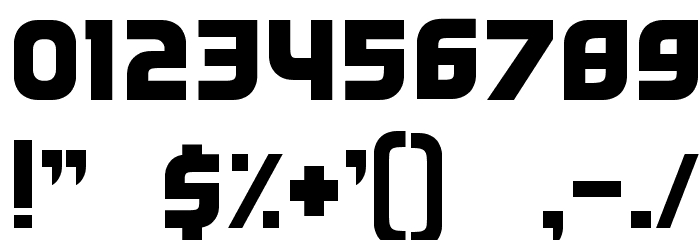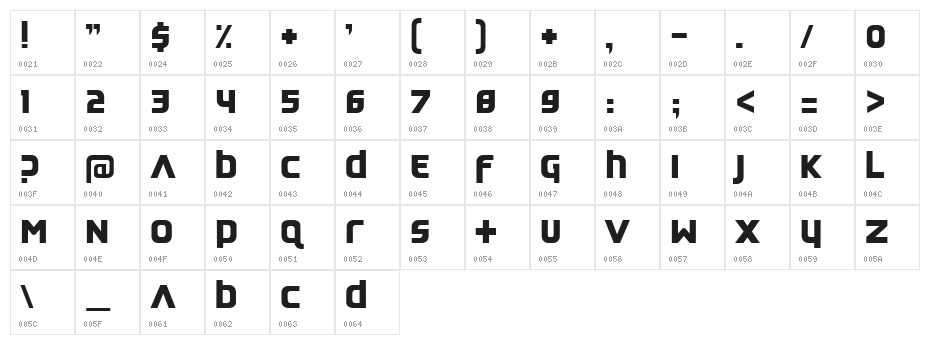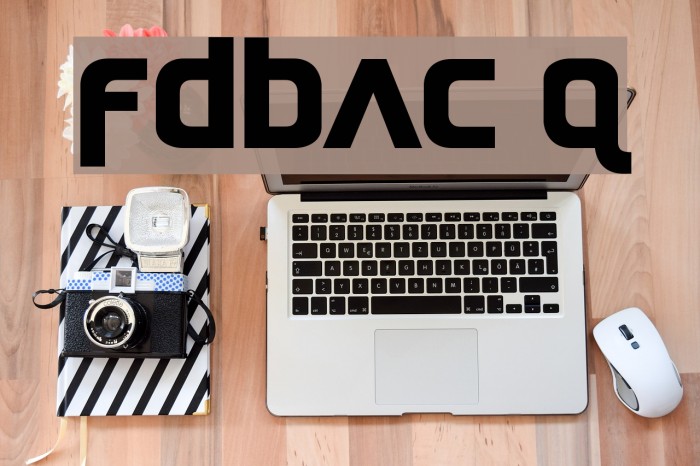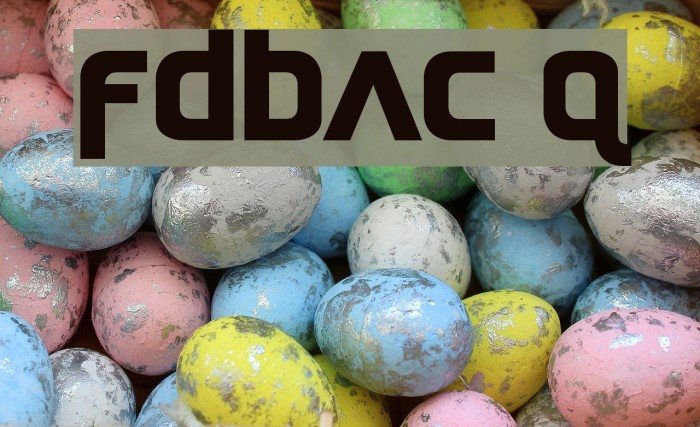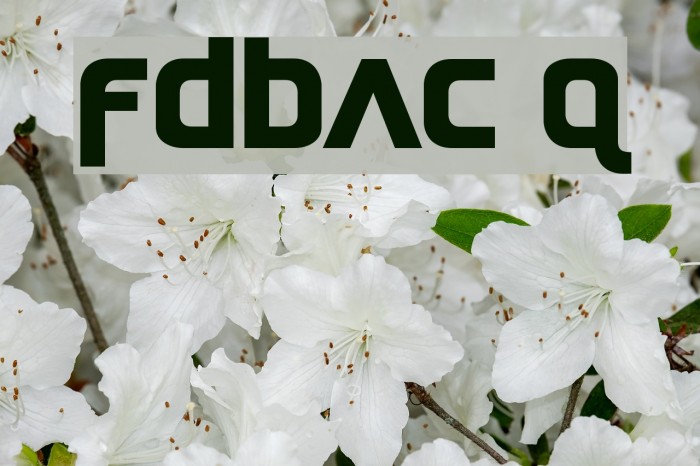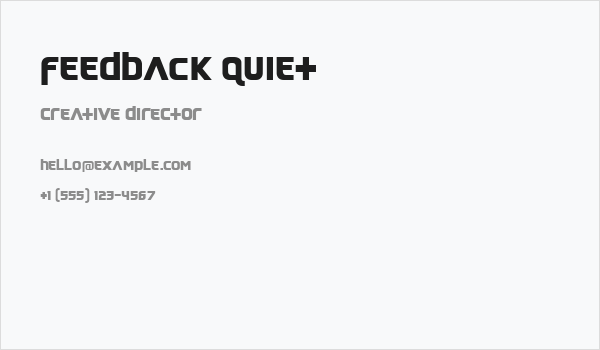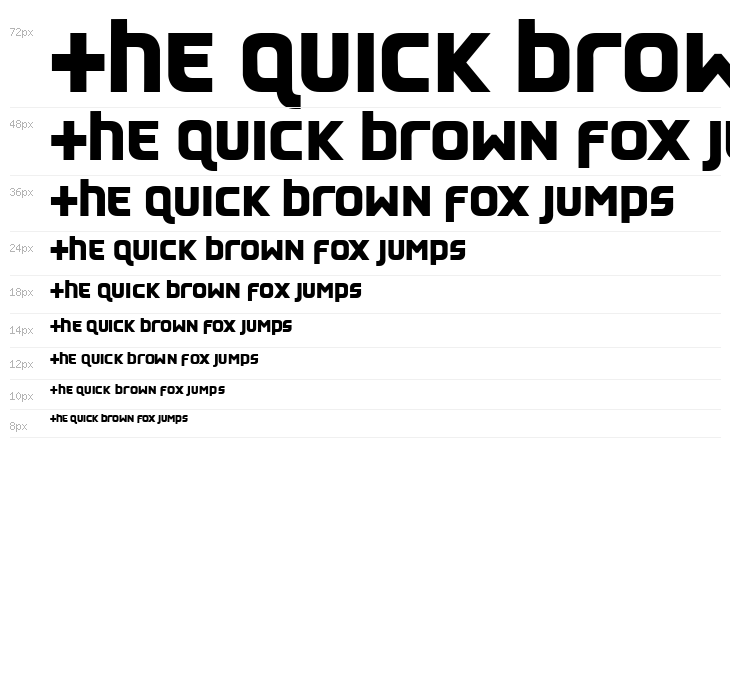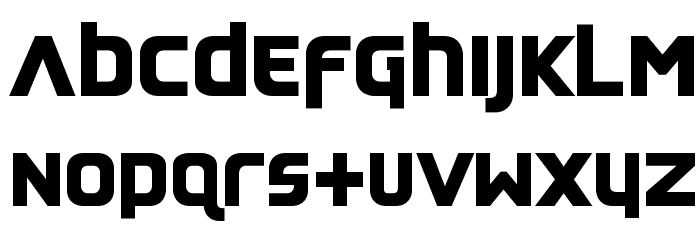
Feedback Quiet Font
Feedback Quiet Description
This font features a bold and geometric design, characterized by its strong, angular lines and uniform stroke width. The uppercase and lowercase letters maintain a consistent height, creating a cohesive and structured appearance. The numerals and special characters follow the same design principles, ensuring a harmonious look across all elements. The font's modern aesthetic is enhanced by its clean and minimalistic style, making it suitable for contemporary design projects. The characters are well-spaced, providing excellent readability and a balanced visual impact.